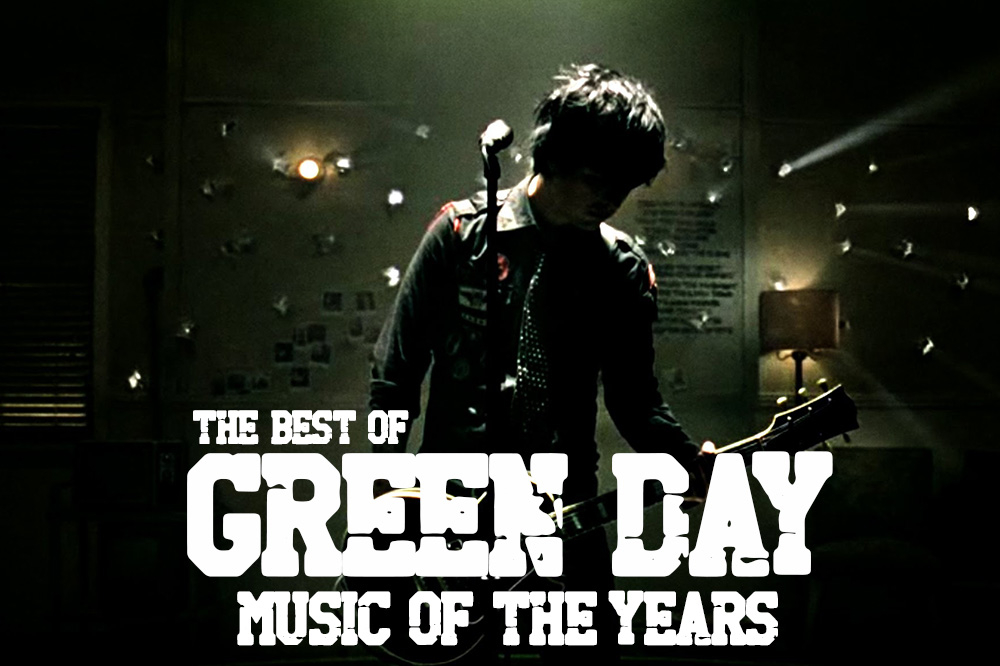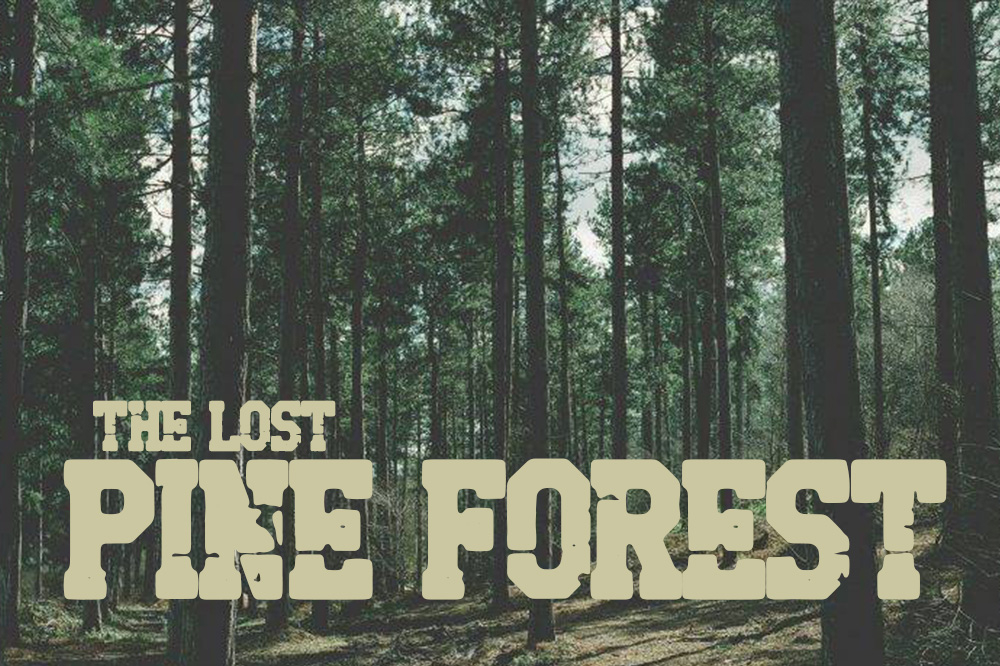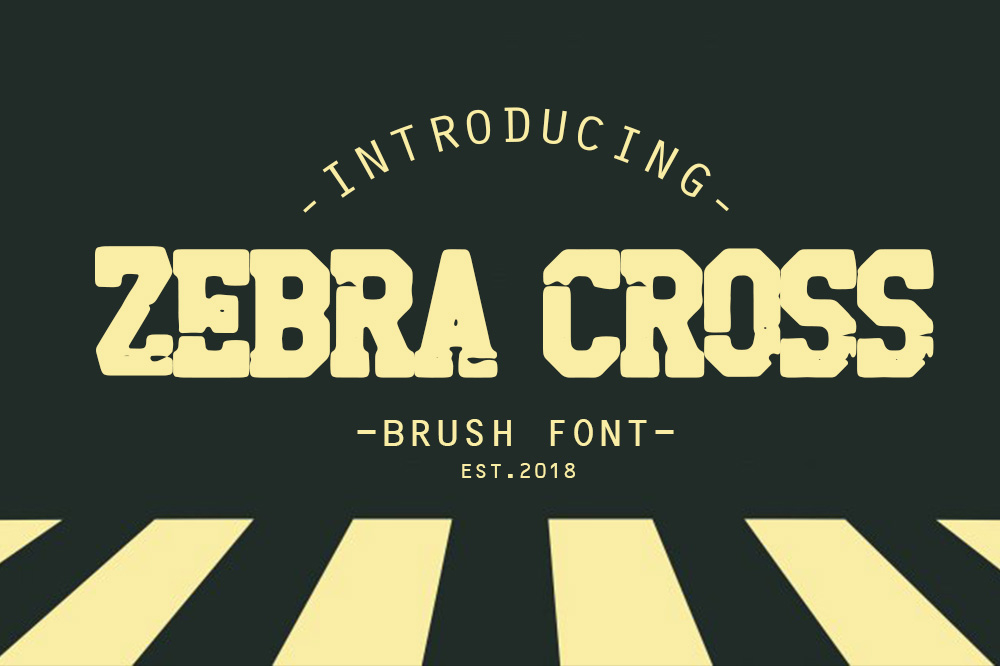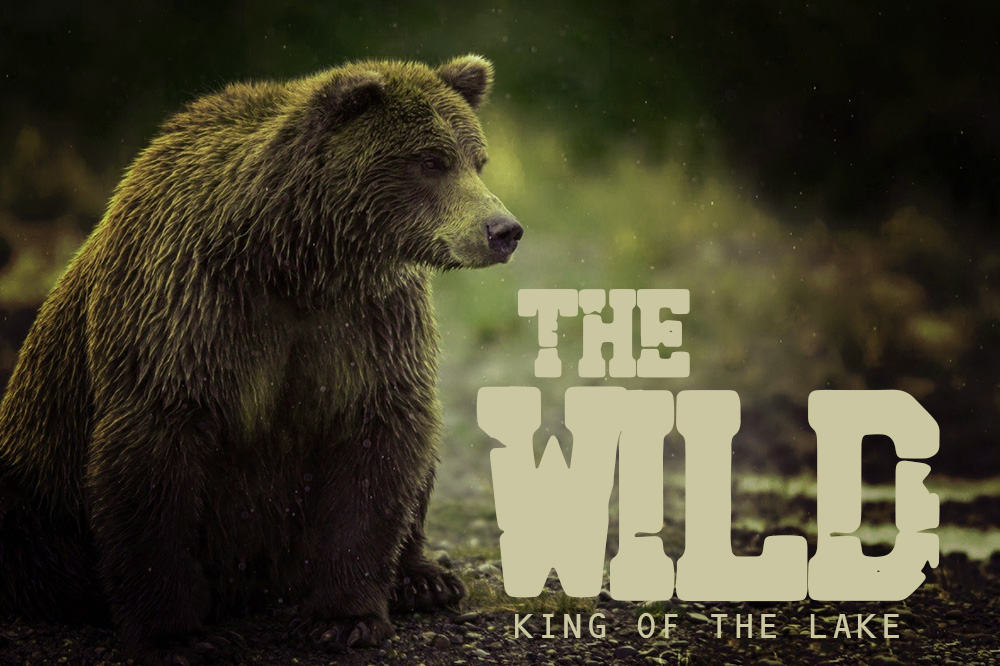
HomeBlackletter FontsZebra Cross Font Blackletter Fonts Zebra Cross Font FacebookXPinterestWhatsApp 1 of 6 Zebra Cross Font Poster 2... Zebra Cross Font Poster 3... Zebra Cross Font Poster 4... Zebra Cross Font Poster 5... Zebra Cross Font Poster 6... About Zebra Cross Font Zebra Cross is a brush font that is suited for various different type of designs. DOWNLOAD NOW People also explored Mostlovely Font Pegasus Font Snow White Font Shoul Font Alessa Gabriel Font Coconut Candy Font Kingsmen Font Belinta Cinta Font Kitabisa Font 493 0 TagsZebra Cross Font Previous articleRavenholm Family FontNext articleRavenholm Slant Font LEAVE A REPLY Cancel reply Comment: Please enter your comment! Name:* Please enter your name here Email:* You have entered an incorrect email address! Please enter your email address here Website: Save my name, email, and website in this browser for the next time I comment. Personal Use Free Harshita Personal Use Free Read more about this font BD Fluke Personal Use Free Read more about this font Time for Presents Personal Use Free Read more about this font Ennobled Pet Personal Use Free Read more about this font BLOG Best Fonts for YouTube Videos: Make Your Thumbnails Stand Out Best Fonts for YouTube Videos: Make Your Thumbnails Stand Out Choosing the right font can make a massive difference in how your YouTube videos perform.... 5 Fonts That Will Dominate Design Trends in 2026 Free Fonts Risk: Why Free Fonts Can Be Dangerous for Designers How to Cut Any Font on Cricut: Convert a Font to SVG (Free)